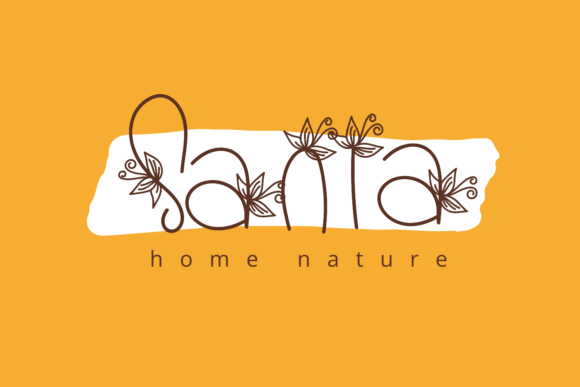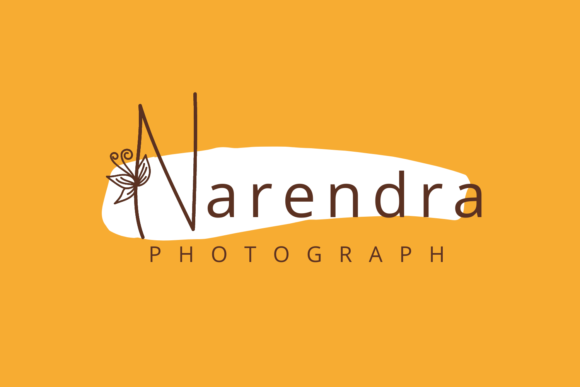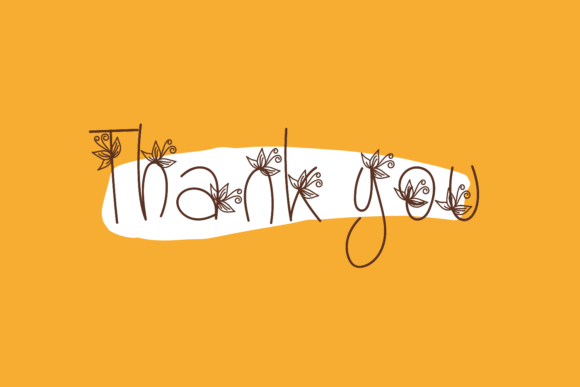
The Magic of Florist Font: A Designer’s Delight
I’ll never forget the time I was working on a wedding invitation project, and my client asked for a font that would make their special day feel like a fairytale. I scoured the internet, tried countless fonts, but nothing seemed quite right. That was until I stumbled upon the Florist Font. This beautiful, dainty script font with its lovely flower ornaments instantly captured the romantic essence of the occasion. In this article, I’ll share my journey with Florist Font, its features, and how you can make the most of it in your designs.
An Honest Review of Florist Font
- ✨ Unique and Whimsical Design: The Florist Font stands out with its thin, elegant lines and adorable flower ornaments, making it perfect for projects that need a touch of romance and playfulness.
- ✅ Versatility: Whether you’re designing greeting cards, headlines, or any other creative project, this font fits right in.
- 💕 Romantic Feel: It adds a certain charm and elegance to your designs, making them instantly more captivating.
While Florist Font is amazing for many projects, there are a few things to keep in mind:
- ⚠️ Legibility at Small Sizes: Like many script fonts, Florist Font can be a bit tricky to read at very small sizes. It’s best used at larger sizes where its details can shine.
- 🤔 Pairing with Other Fonts: Due to its unique style, it can be a bit challenging to pair with other fonts. You’ll want to choose complementary fonts that don’t compete with its elegance.
The Story Behind Florist Font
Florist Font was inspired by the delicate beauty of flowers and the art of floristry. The designer aimed to capture the elegance and romance of flowers in a font that could be used to convey love, joy, and celebration. With its intricate details and whimsical ornaments, Florist Font brings a piece of nature into your digital and print designs.
Q: Is Florist Font suitable for body text?
A: While Florist Font is stunning, it’s primarily designed for display purposes. Its thin lines and intricate details make it less suitable for long body text. For body text, consider using a clearer, sans-serif font.
Q: Does Florist Font support OpenType features?
A: Yes, Florist Font supports OpenType features, including stylistic alternates and glyphs. This allows for a high level of customization and creativity in your designs.